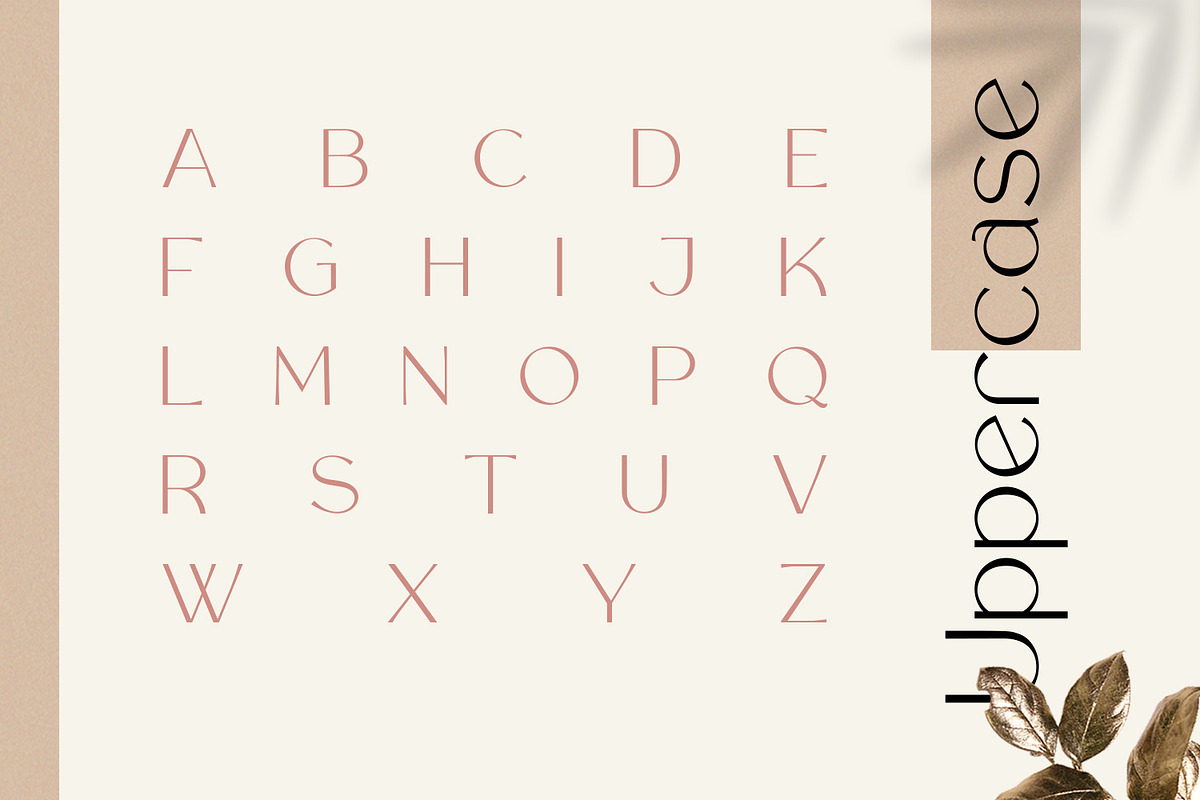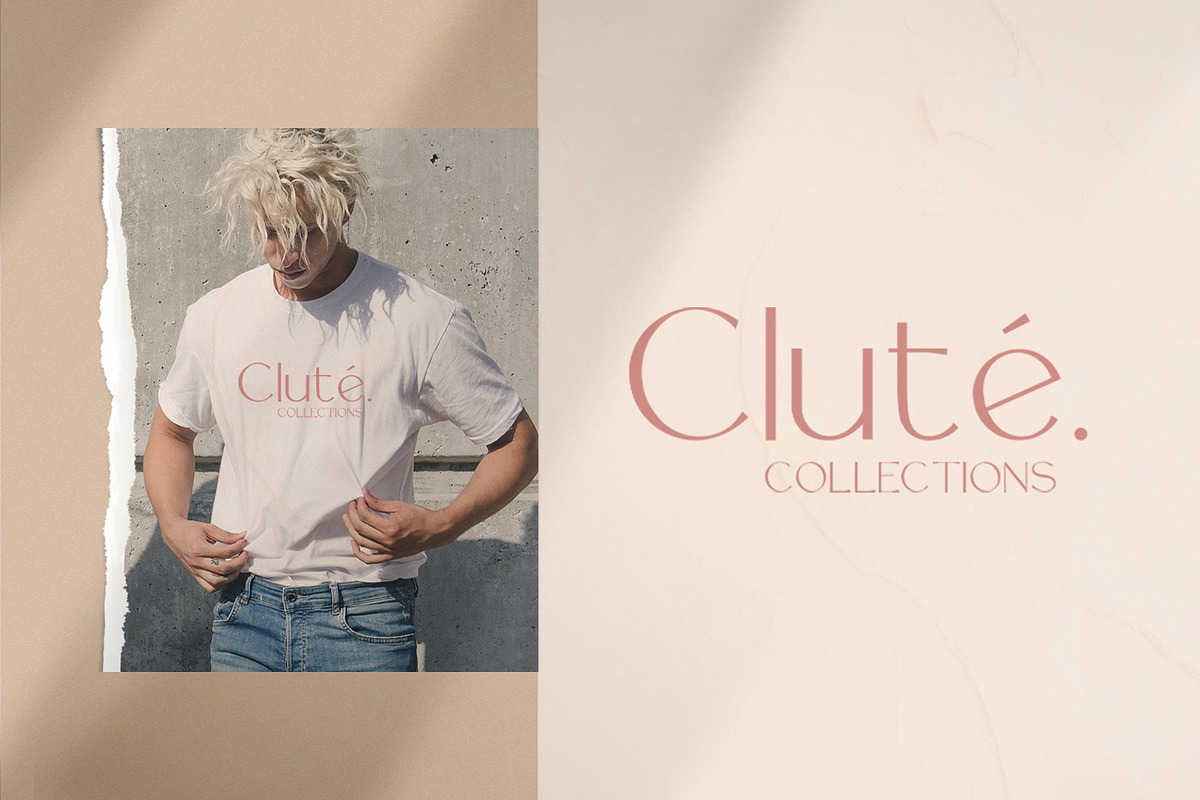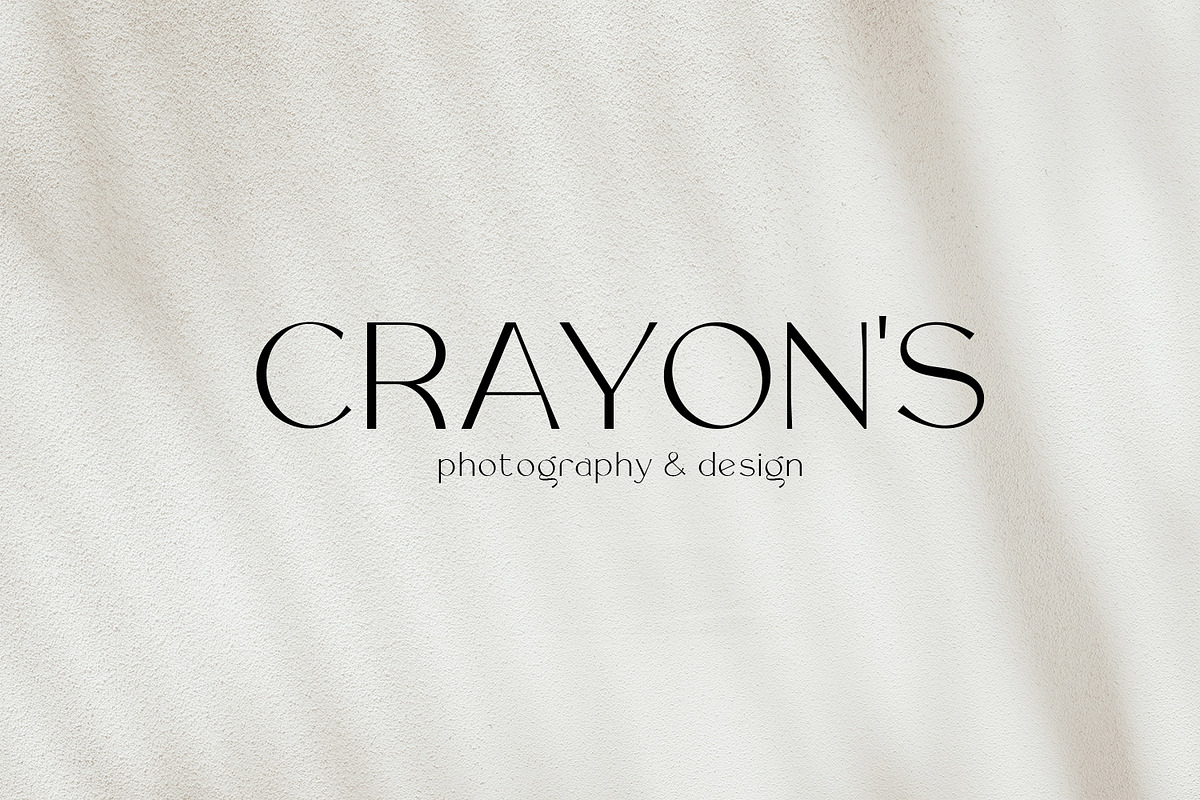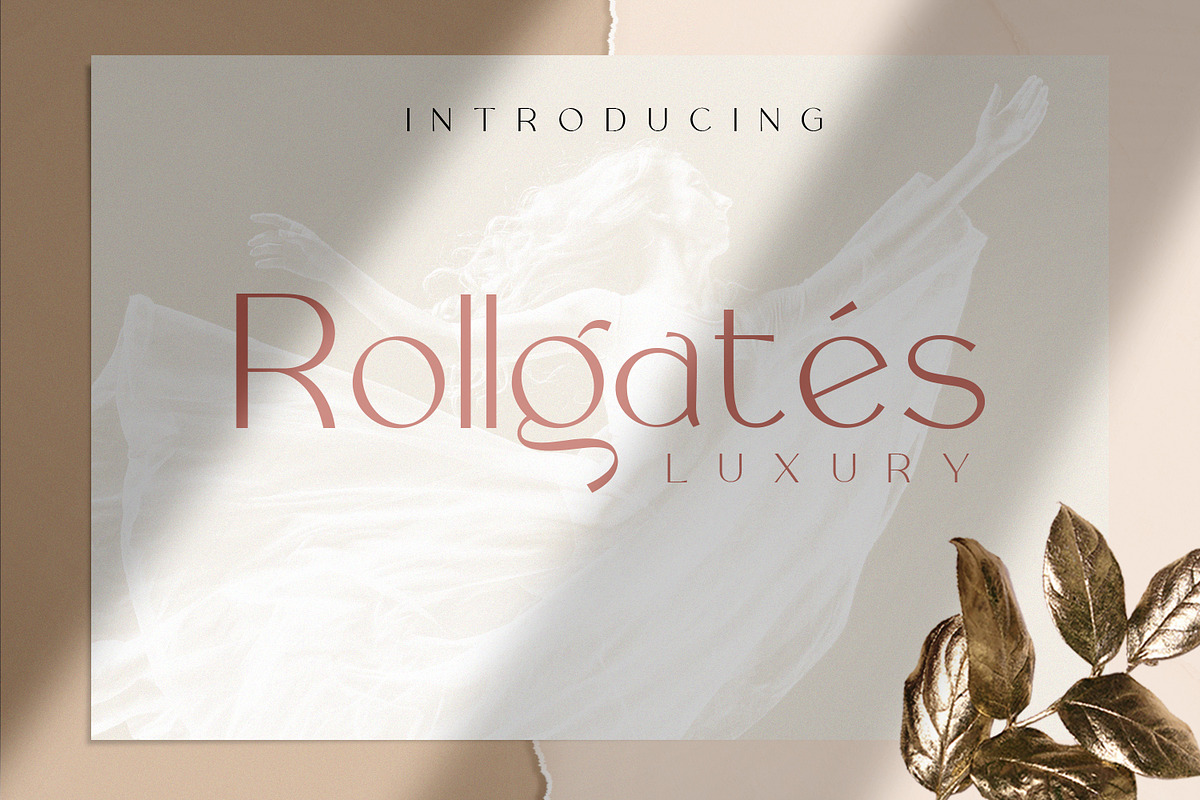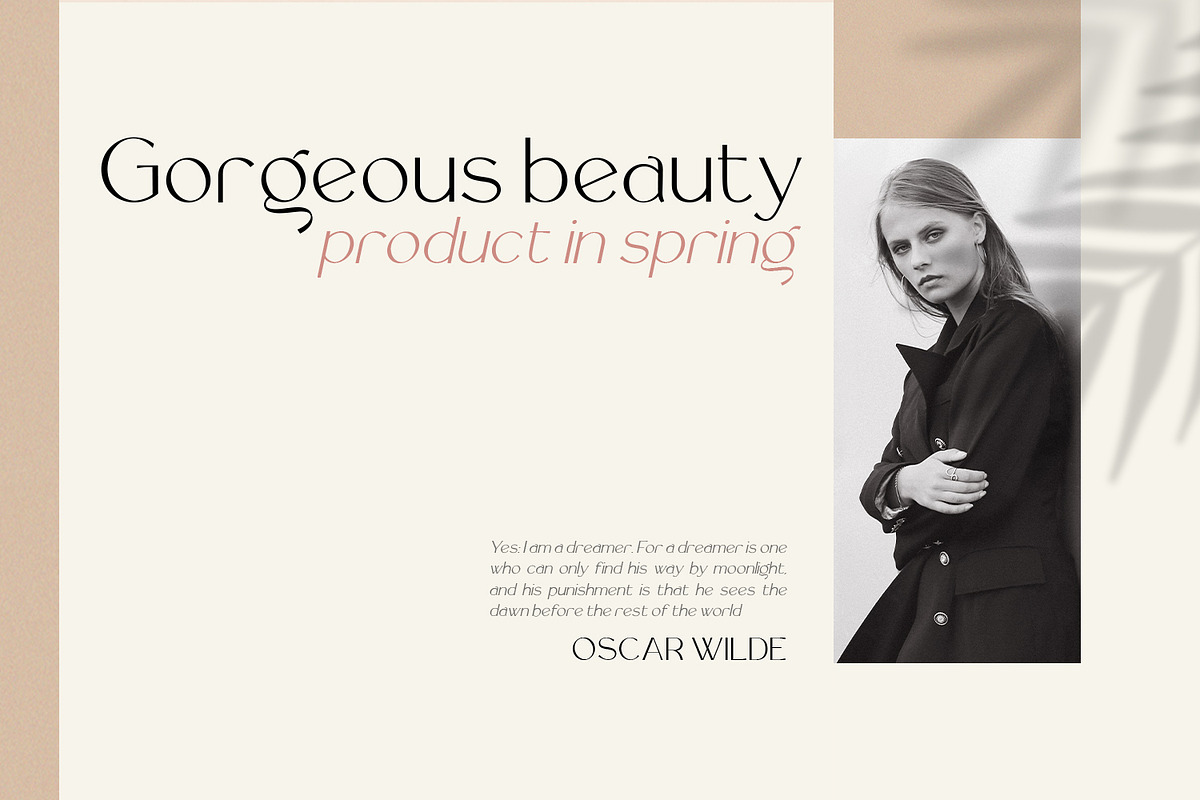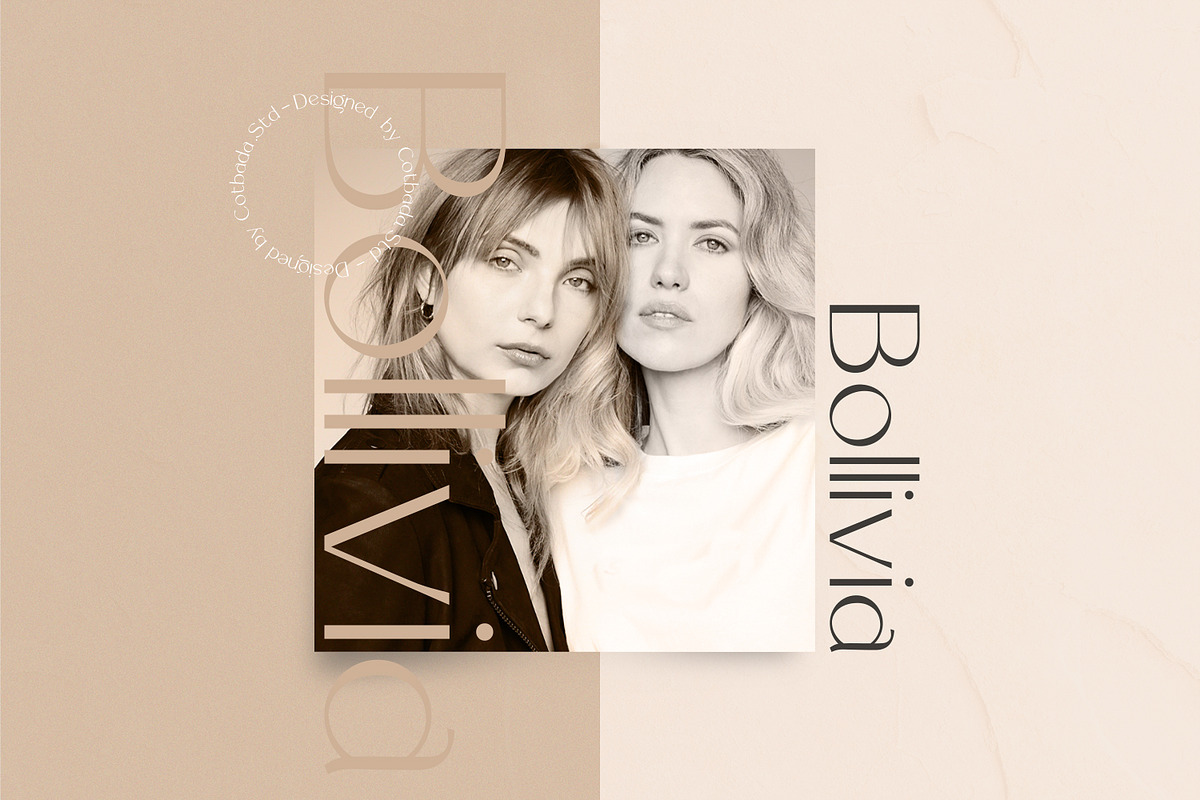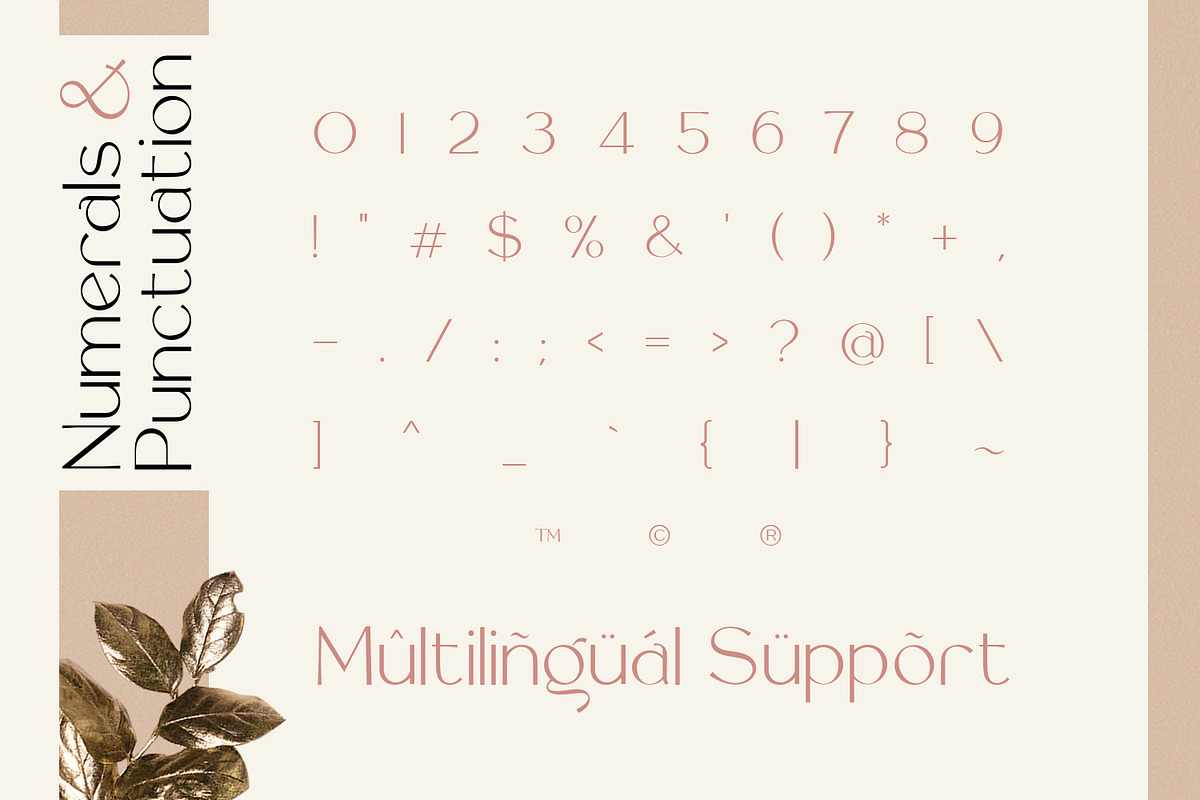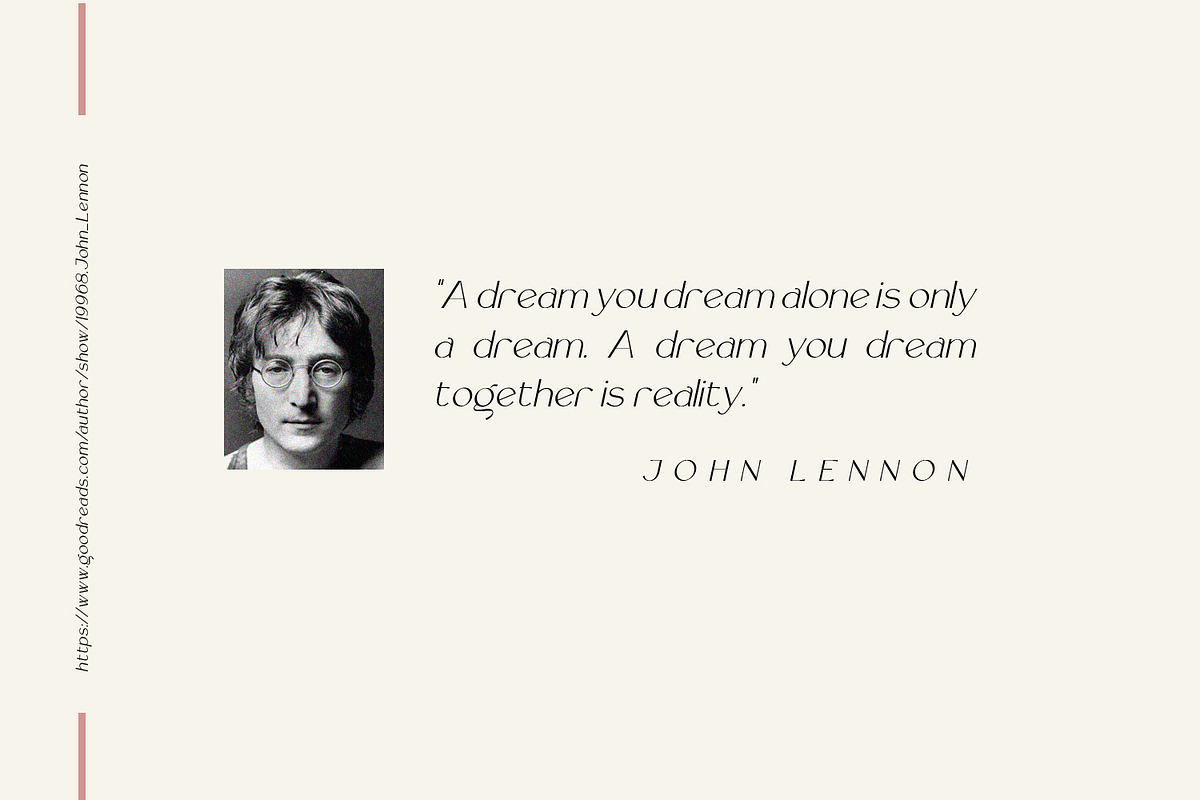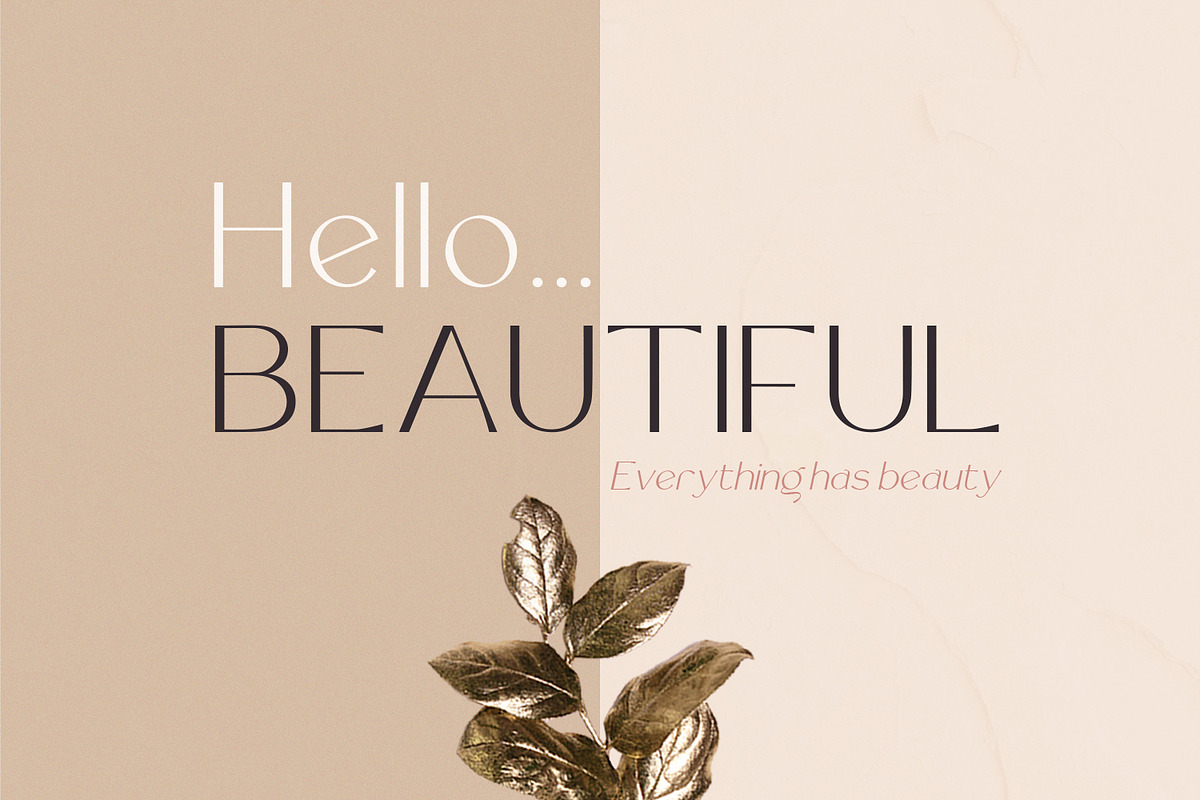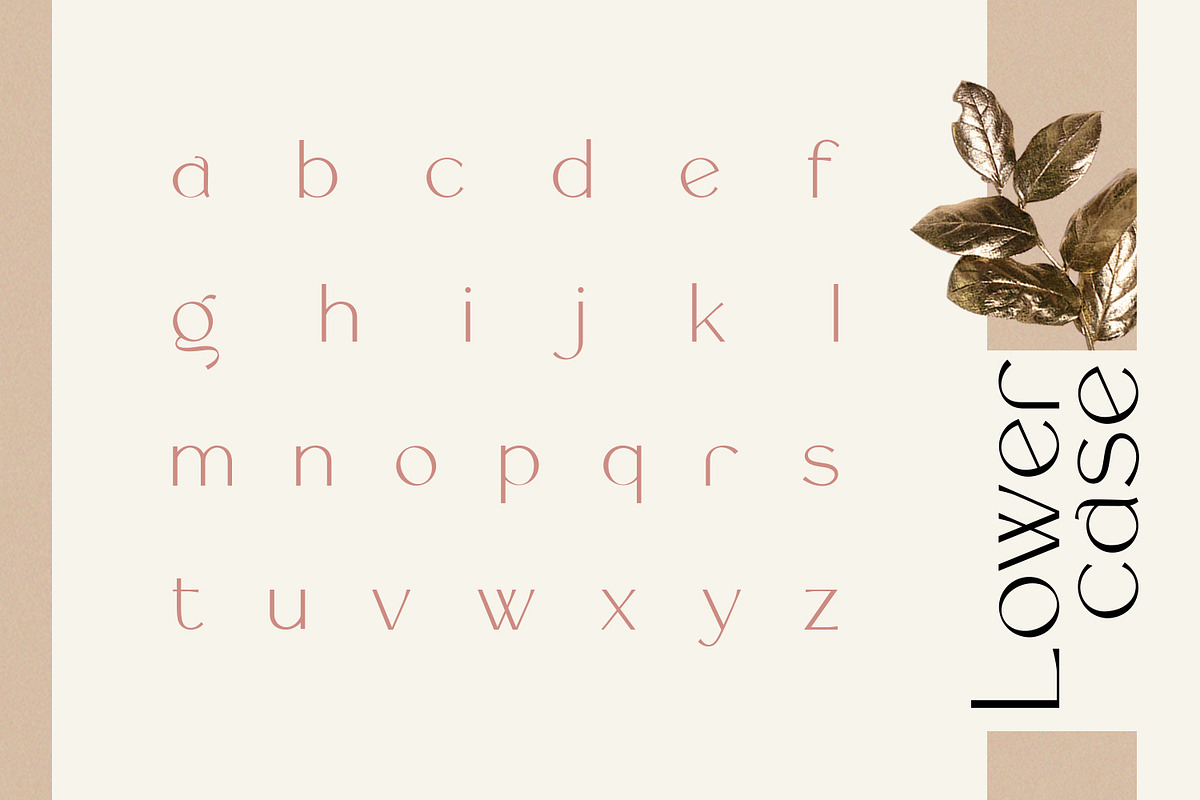
Rollgates Luxury
Rollgates Luxury is a gorgeous sans-serif typeface that is both classically elegant and modern. Create beautiful wedding invitations, use it as an elegant solution for your next magazine layout, power point or choose Rollgates Luxury for any graphics that require a sleek look with a vintage flair.
- Uppercase Characters
- Lowercase Characters
Multilingual support for various languages including: French, German, Spanish, Portuguese, Italian, Dutch, Finnish, Swedish, and more.